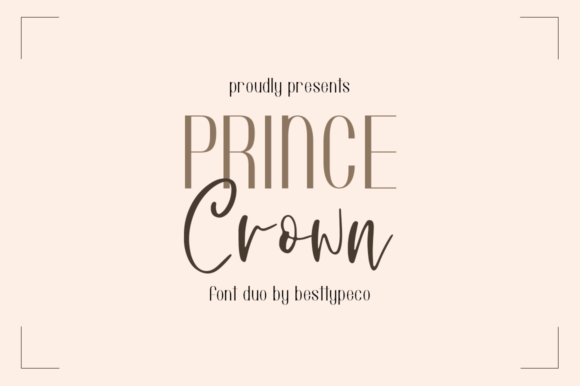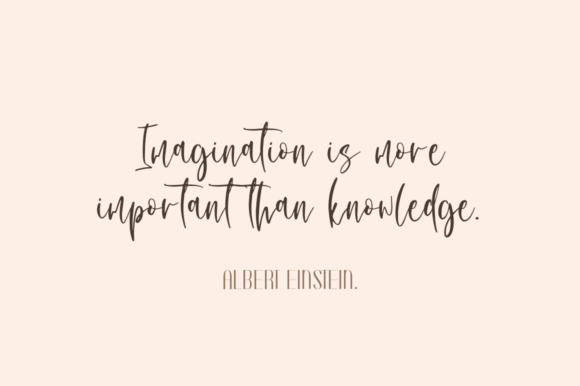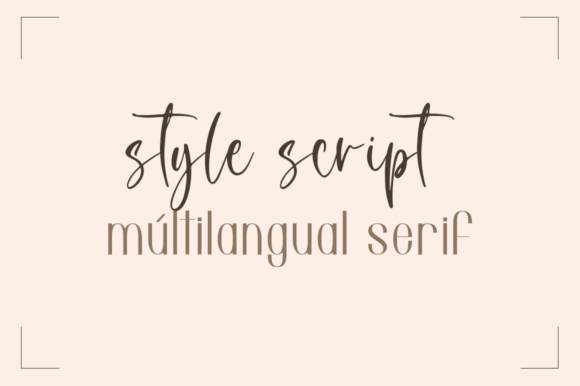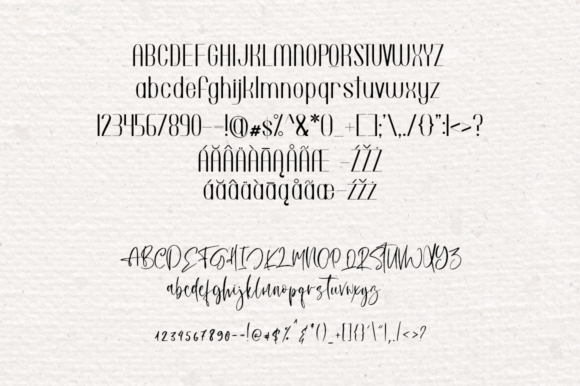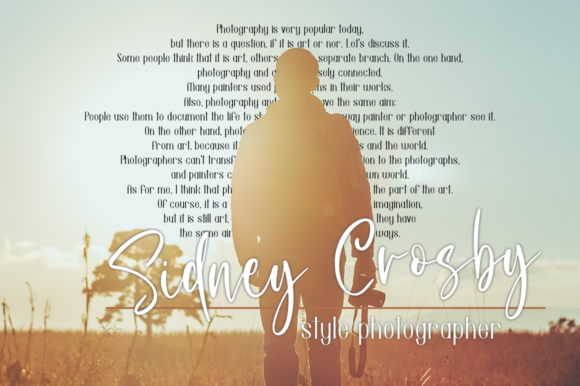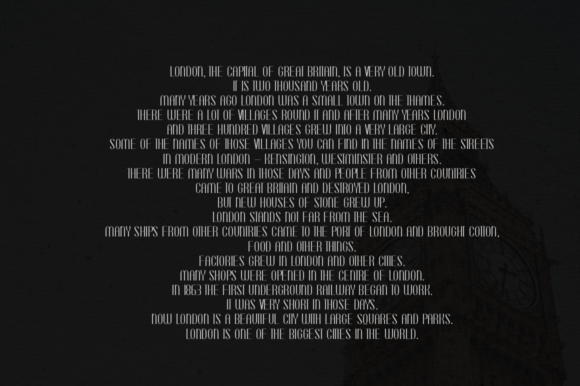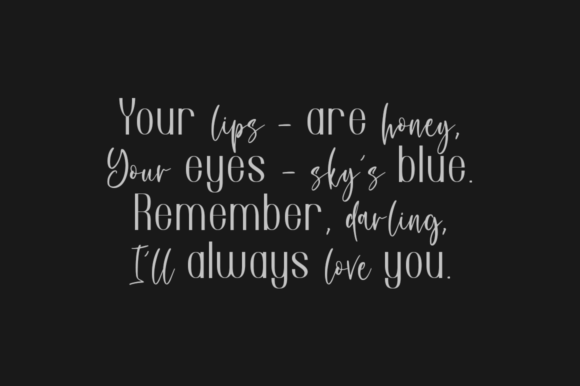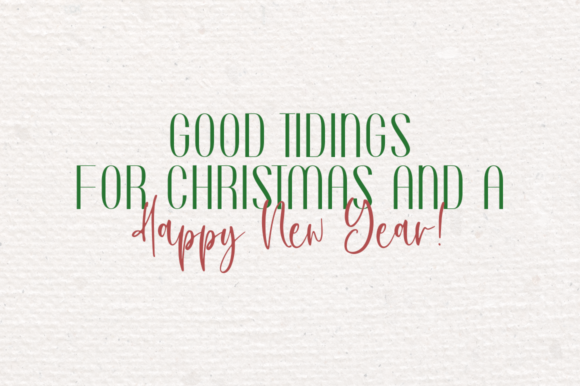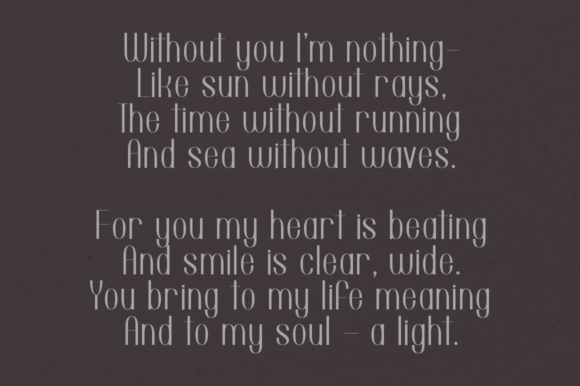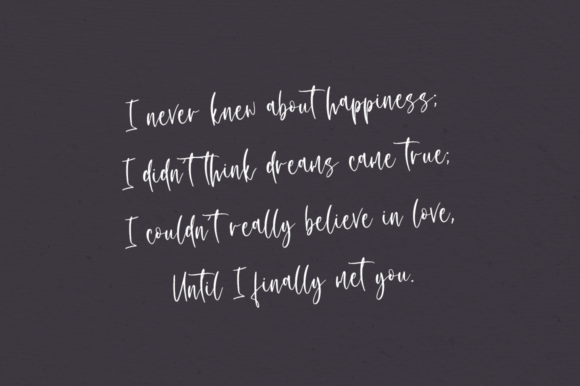
Prince Crown Font
About Prince Crown Font
Prince Crown is a gorgeous and modern font duo. It features a handmade calligraphy font and a modern sans serif font, that combine extremely well!